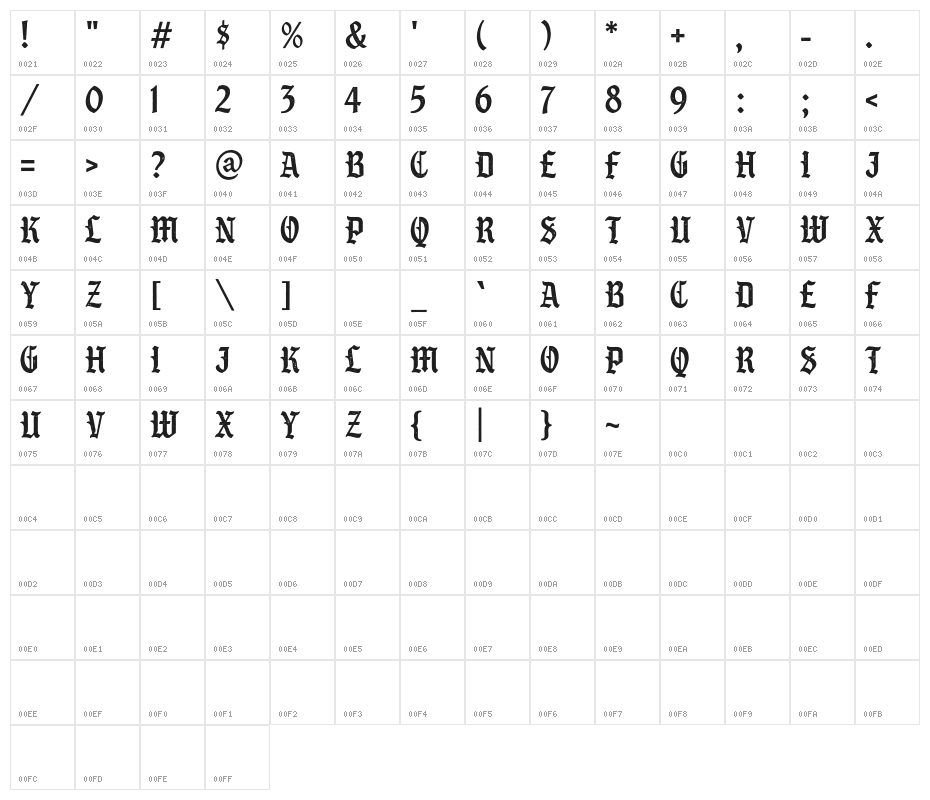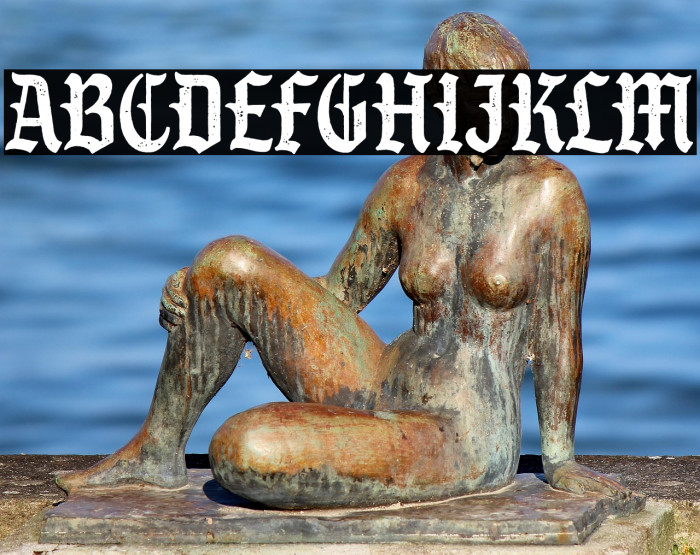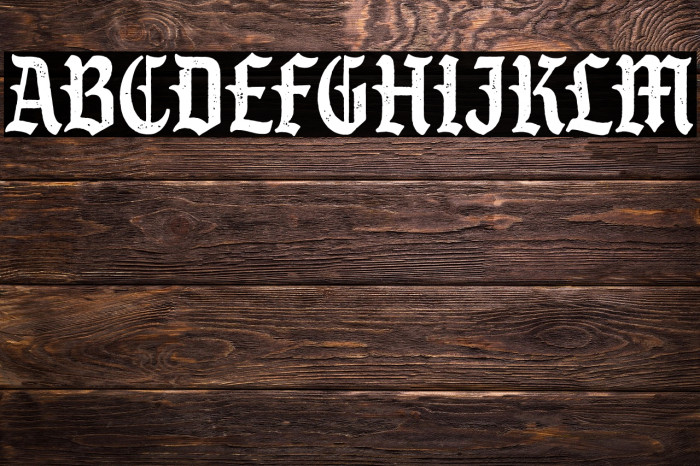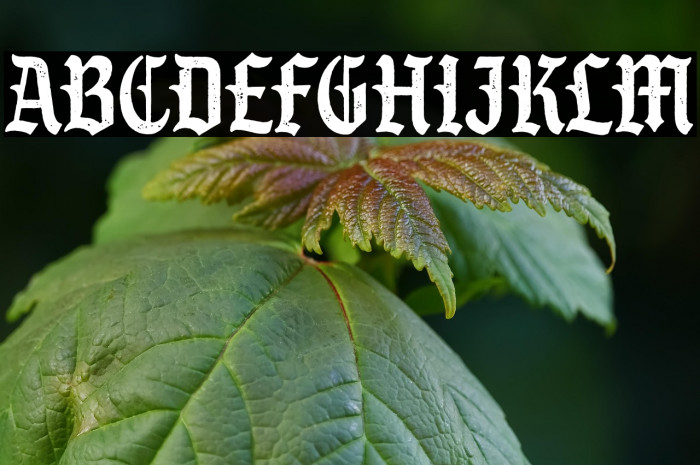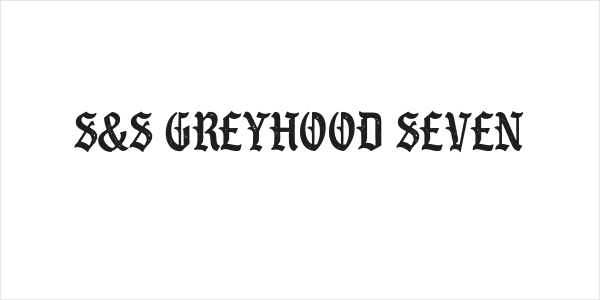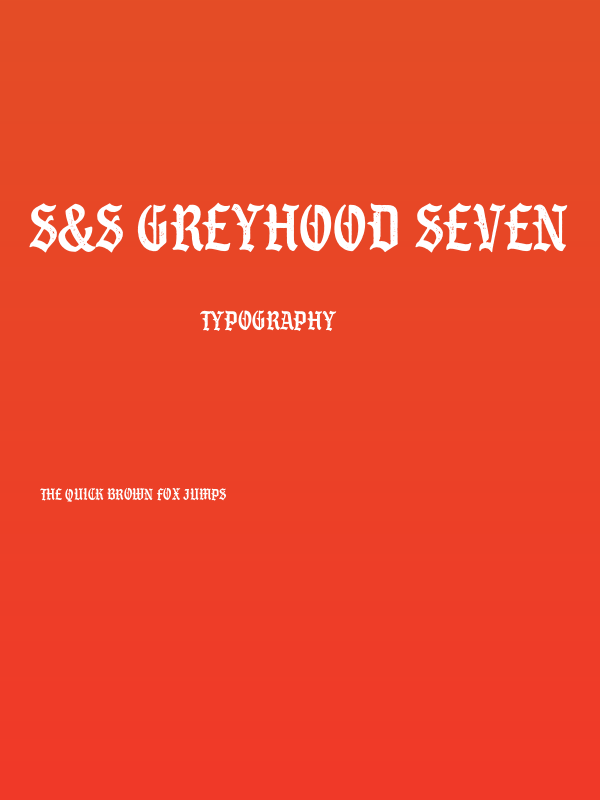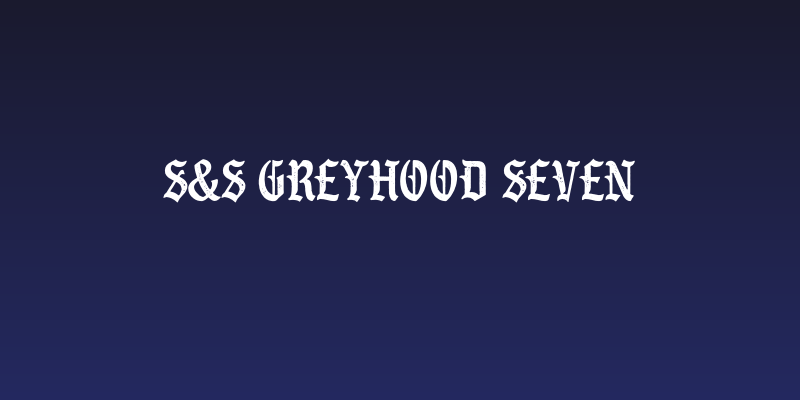
S&S GreyHood Seven Font
S&S GreyHood Seven Description
This font exhibits a bold and striking blackletter style, characterized by its sharp, angular lines and dramatic flourishes. The uppercase and lowercase letters maintain a consistent medieval aesthetic, reminiscent of traditional Gothic script. The numbers and special characters follow the same stylistic cues, ensuring a cohesive appearance across all glyphs. The texture within the characters adds a distressed, vintage feel, enhancing its historical appeal. This font is ideal for creating a sense of tradition and authority, often used in contexts that require a touch of old-world charm.
Overall StyleVintage
Use CaseHeadlines, Logos, Decorative text
Proposed ProjectsSuitable for historical documents, vintage posters, branding for traditional products, or any project needing a Gothic touch.